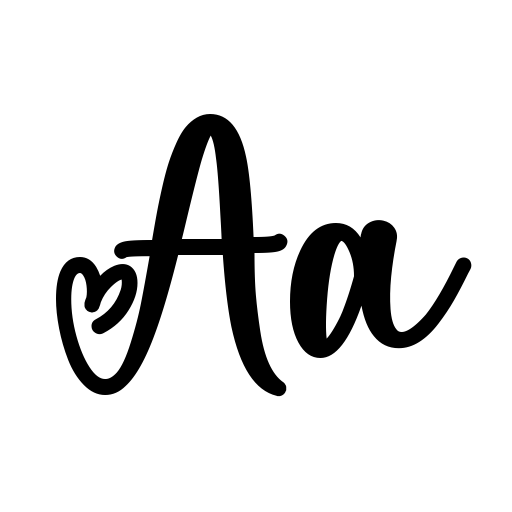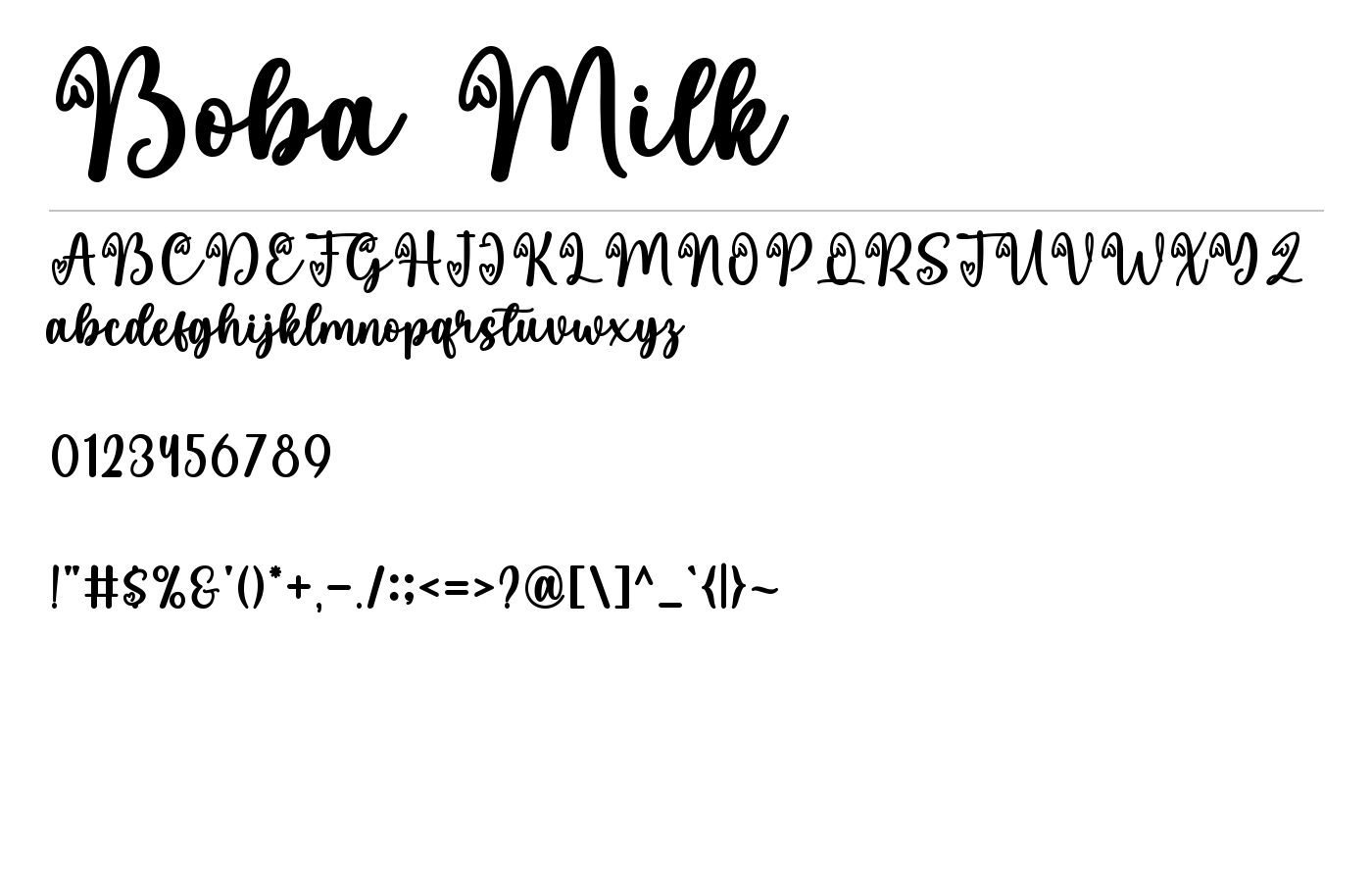
Boba Milk is a charming script font with playful, rounded strokes and heart-shaped accents that add a unique, whimsical touch. Its moderate weight and flowing letterforms make it ideal for fun, friendly branding or creative headlines, especially for lifestyle, food, or boutique brands seeking a warm, inviting vibe. This font works best in logos, packaging, and headlines where a personal, cheerful expression is desired.
Boba Milk Font
About Boba Milk Font
| Font family | Boba Milk Font |
| Designer | Wahyu Setiyawan |